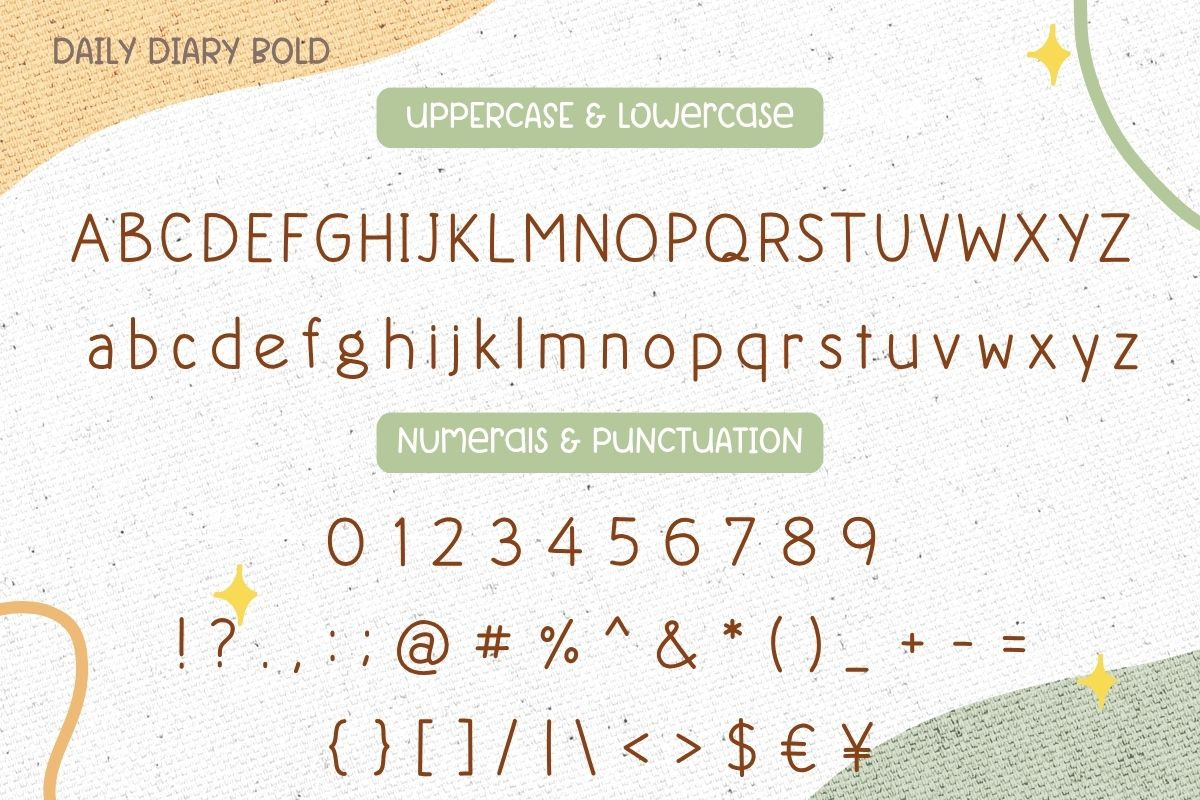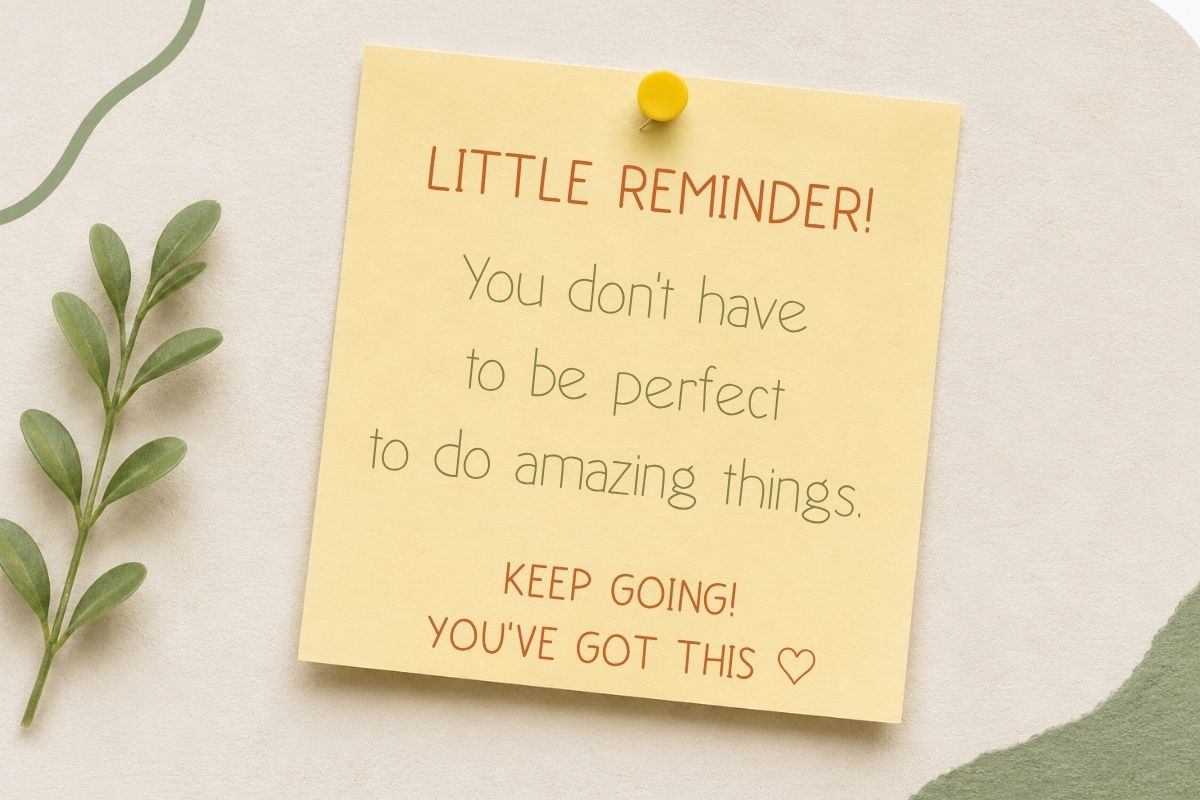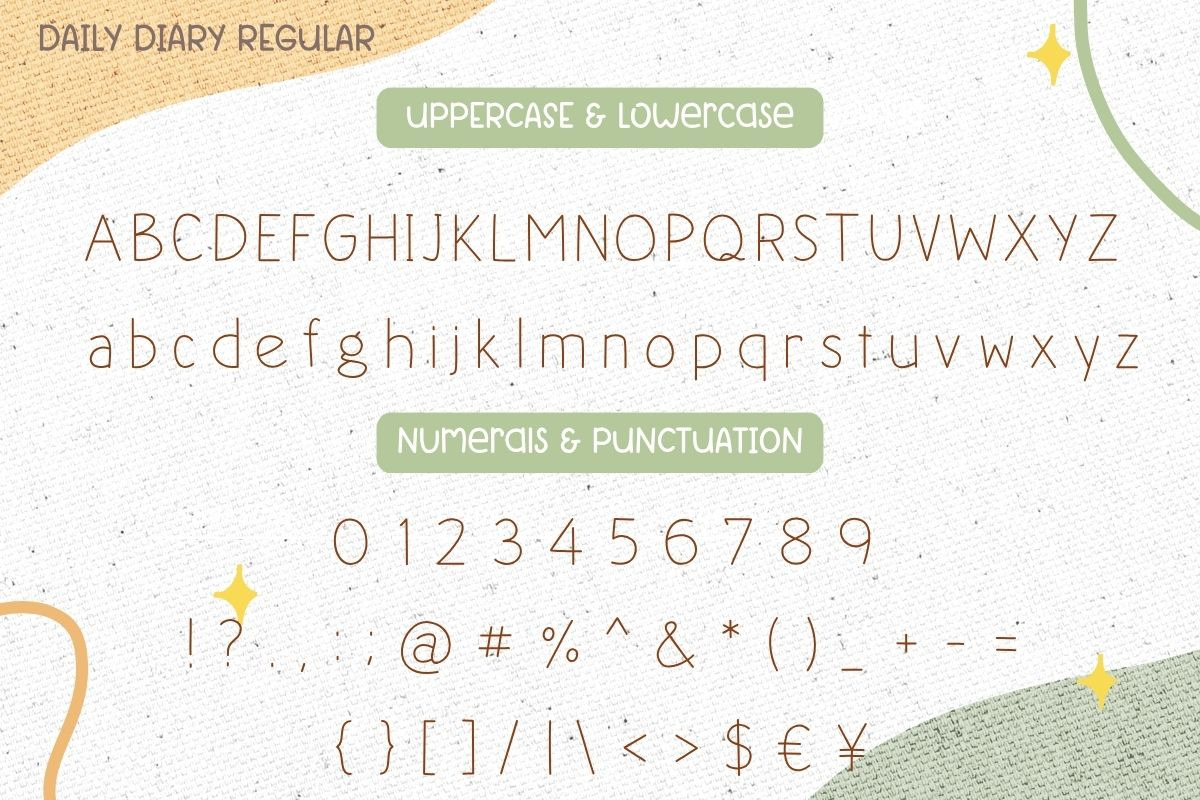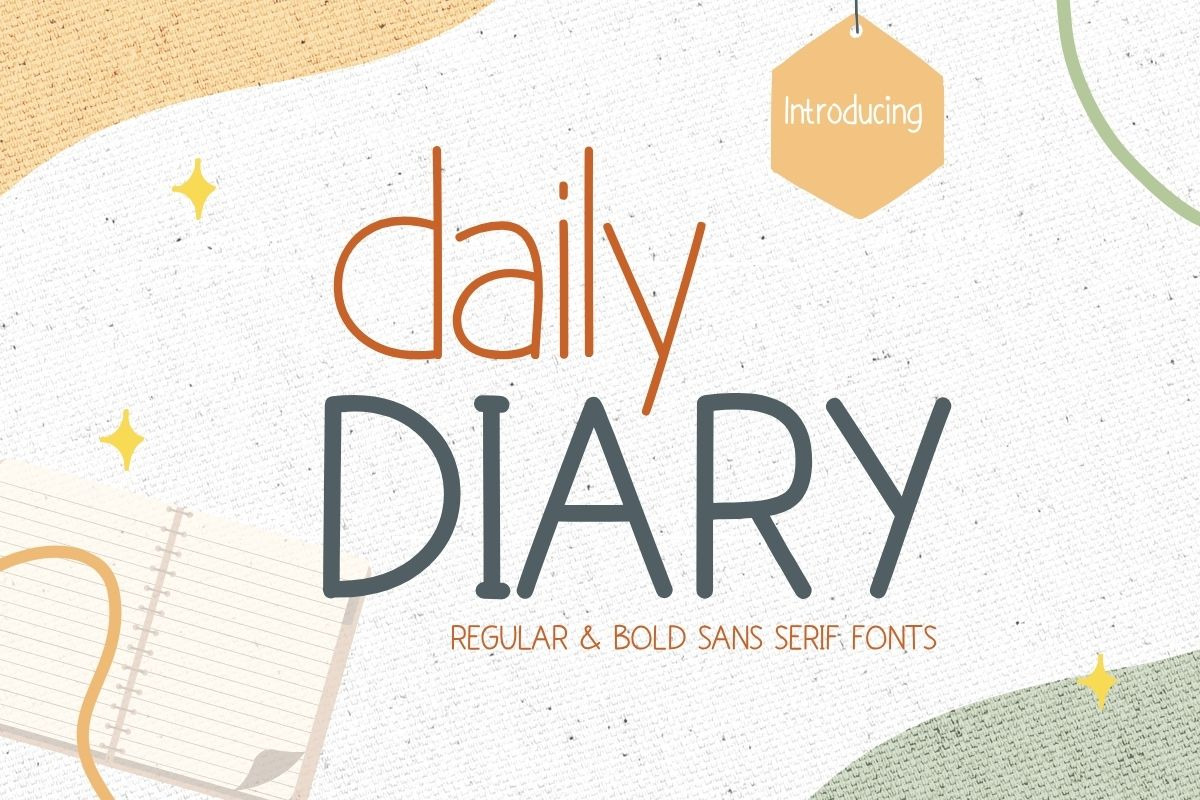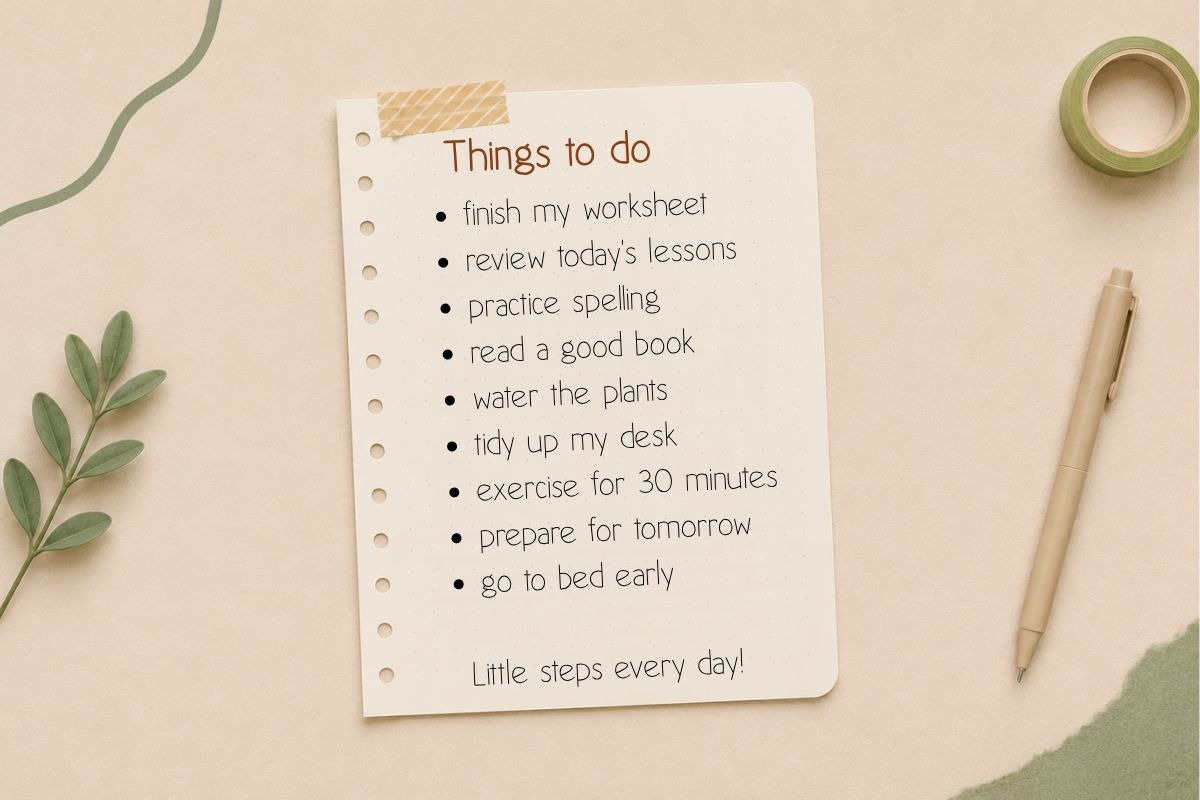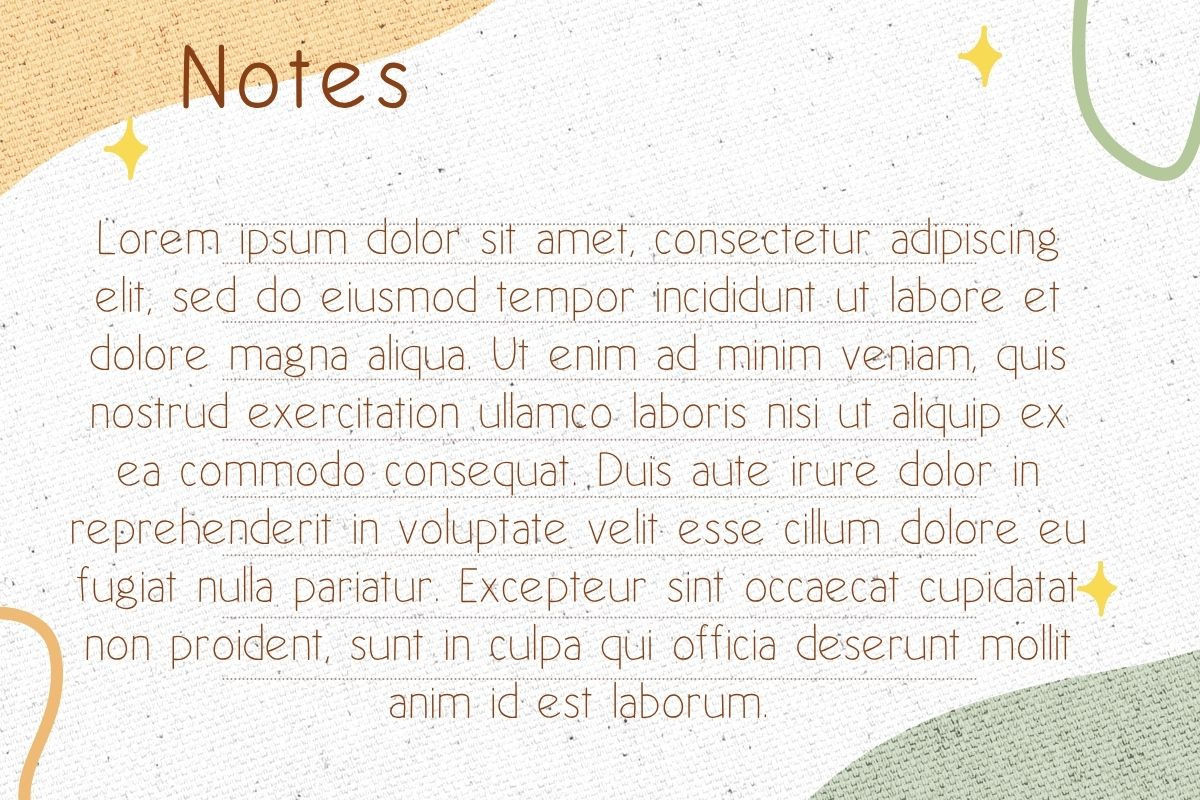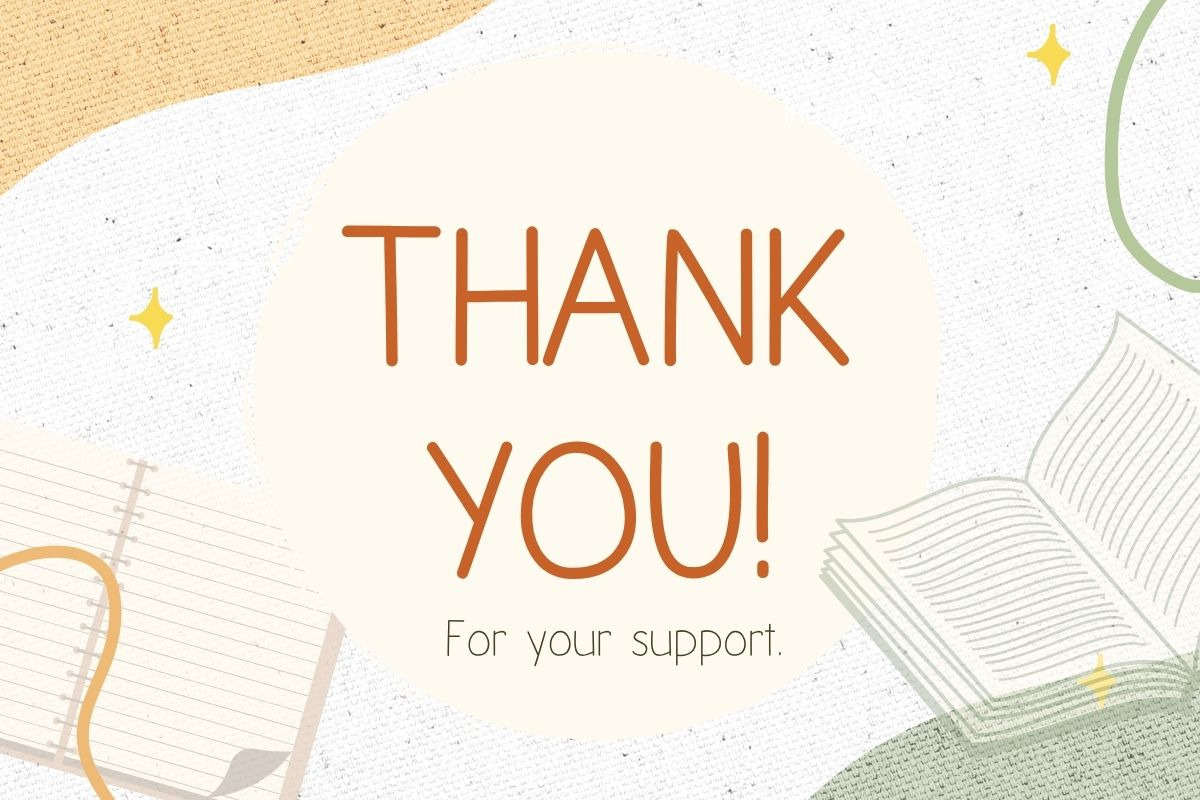
Daily Diary – Handwritten Font
Daily Diary is a modern handwritten sans-serif font duo featuring Regular and Bold styles. Its clean lines, slim letterforms, and minimalist appearance create a friendly handwritten look that remains highly legible in both print and digital designs. Whether used for titles, notes, planners, or branding, this versatile font delivers a fresh and organized aesthetic for everyday creative projects.